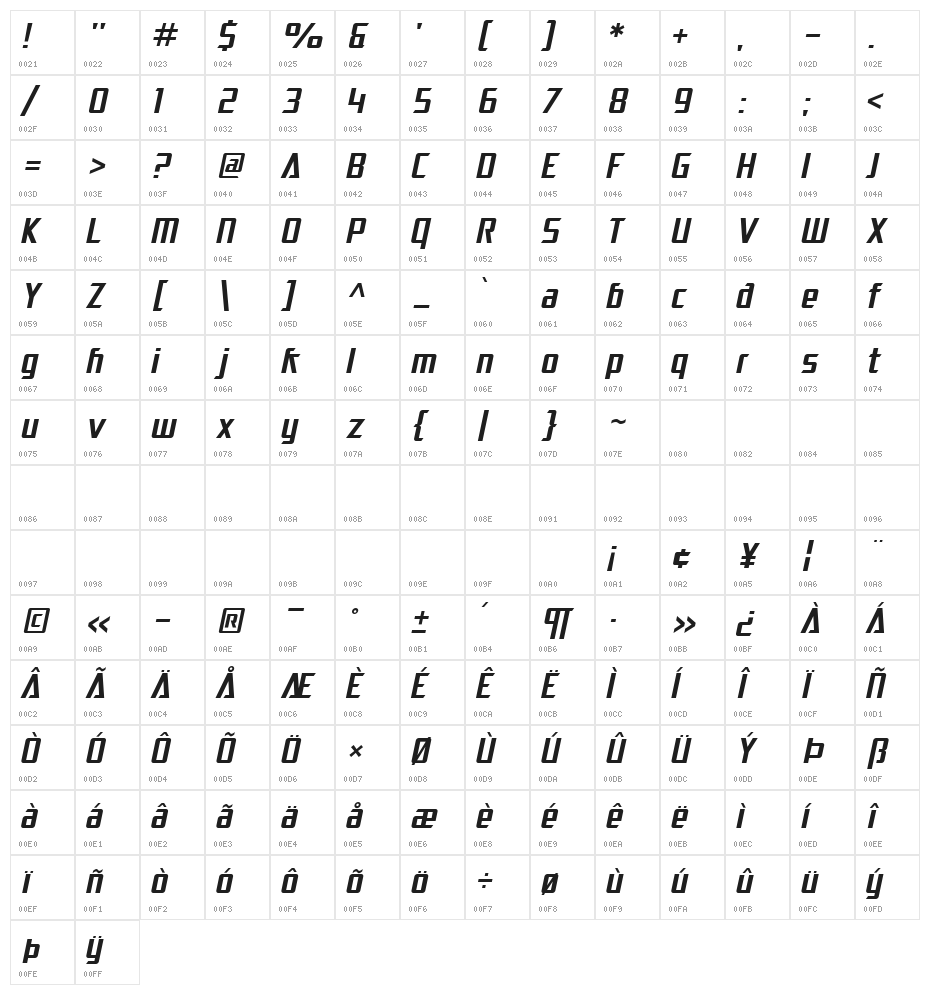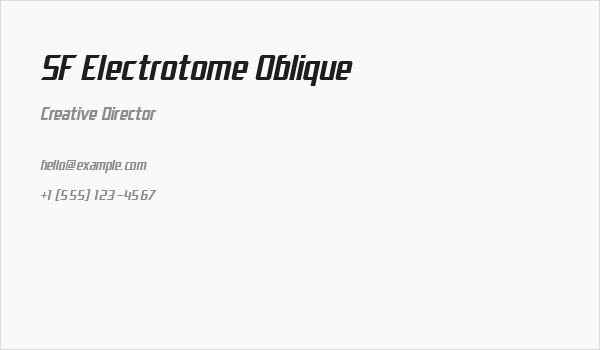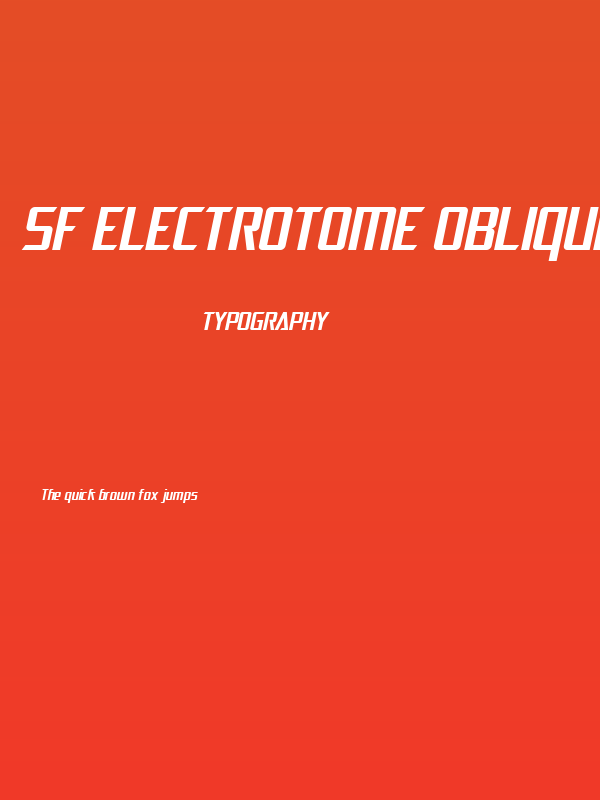
SF Electrotome Oblique Font
SF Electrotome Oblique Description
This font features a sleek, modern design with a distinct oblique slant, giving it a dynamic and forward-moving appearance. The characters are bold and angular, with sharp edges and a consistent stroke width that enhances readability. The uppercase letters are particularly striking, with a futuristic aesthetic that is both eye-catching and professional. The lowercase letters maintain the same angular style, ensuring uniformity across text. Numbers and special characters are designed with the same attention to detail, making this font versatile for various applications.
| Proposed Projects | Ideal for technology branding, sports team logos, futuristic posters, and dynamic web design. |